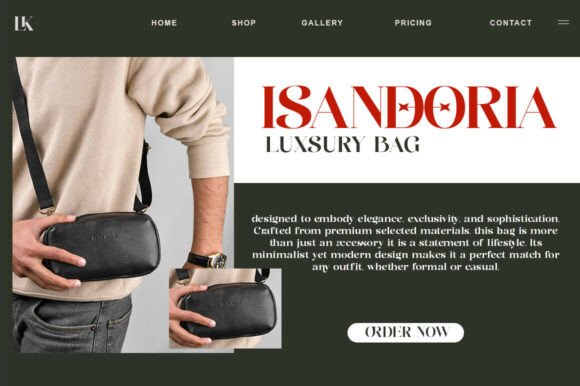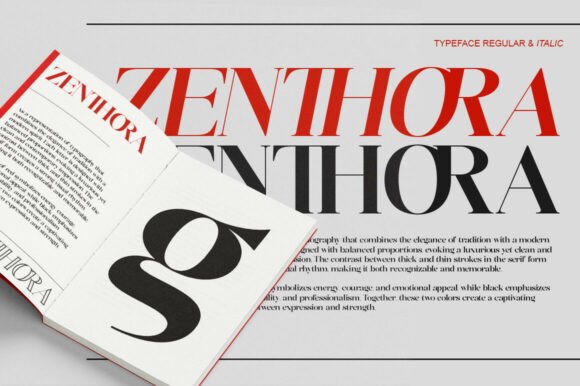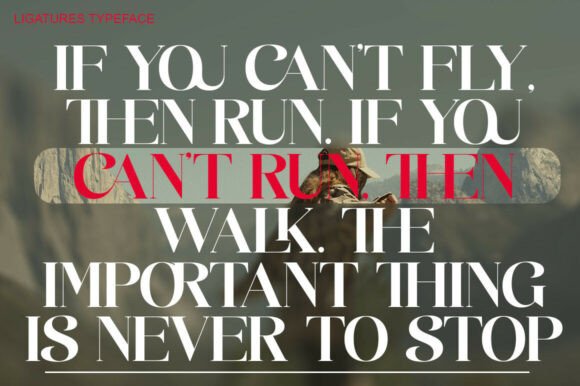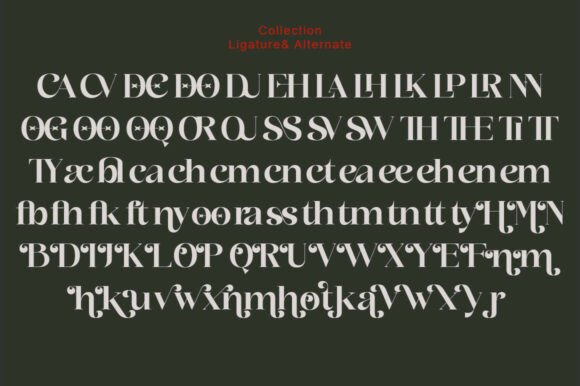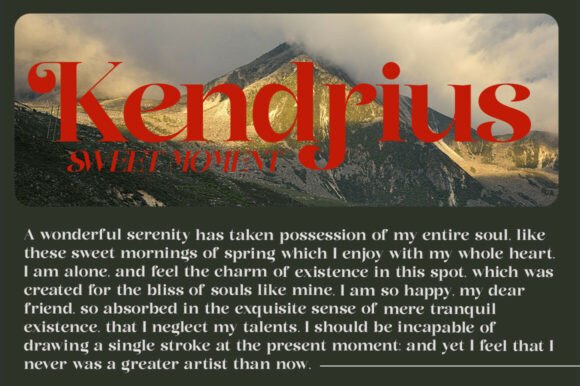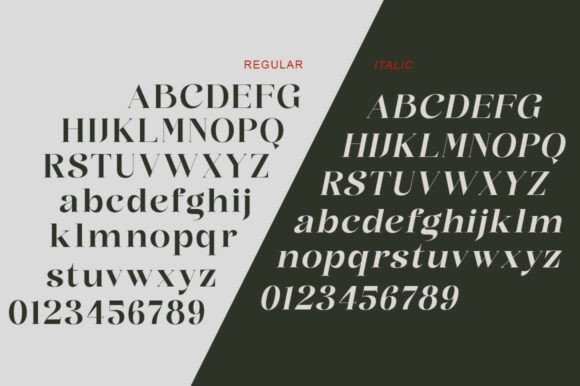
Introducing Feylandor Font: A Luxurious Serif Font for Elegant Designs
In the world of typography, fonts play a crucial role in conveying the tone and personality of a brand, product, or artwork. For designers and crafters seeking a font that embodies both fantasy and elegance, Feylandor Font is an exceptional choice. This serif font masterfully blends the beauty of fantasy with the sophistication of classic typography, making it perfect for a wide range of applications.
The Essence of Feylandor Font
Feylandor Font is characterized by its strong yet graceful serif lines, which exude a luxurious and exclusive feel. Its elegant design makes it an ideal choice for works that desire a refined and sophisticated look. Whether you’re working on premium editorial content, branding, fantasy designs, posters, or book covers, Feylandor Font is designed to elevate your project with its versatile and captivating style.
Key Features of Feylandor Font
- Serif Elegance: Feylandor’s serif lines add a touch of classic sophistication to any design, making it perfect for projects that require an air of elegance.
- Fantasy Twist: The font’s fantasy elements bring a unique and imaginative flair, ideal for designs that venture into the realms of fantasy and fiction.
- Versatility: Feylandor is crafted to be versatile, suitable for a variety of applications ranging from premium editorial and branding to fantasy designs, posters, and book covers.
- Luxurious Feel: The font’s overall design imparts a luxurious and exclusive feel, making it an excellent choice for high-end projects.
Applications of Feylandor Font
Feylandor Font’s versatility makes it suitable for a myriad of design projects. Here are some of the ideal applications:
- Premium Editorial and Branding: Add a touch of elegance and sophistication to magazines, editorials, and brand identities.
- Fantasy Designs: Bring your fantasy worlds to life with a font that captures the essence of magic and wonder.
- Posters: Create eye-catching posters for movies, events, or advertising campaigns that require a unique and captivating typography.
- Book Covers: Give your book covers a professional and enchanting look, perfect for fantasy novels, historical fiction, and classic literature.
Why Choose Feylandor Font?
In a sea of fonts, Feylandor stands out for its unique blend of elegance and fantasy. Here are a few reasons why designers and crafters prefer Feylandor:
- Unique Aesthetic: Feylandor offers a distinct look that combines the best of both worlds – the charm of fantasy and the grace of classic typography.
- High Versatility: The font’s adaptability makes it a valuable asset for designers who work on a wide range of projects.
- Attention to Detail: Crafted with meticulous attention to detail, Feylandor ensures that your designs stand out with clarity and sophistication.
Feylandor Font is a remarkable addition to the world of typography, offering a perfect blend of fantasy and elegance. Its strong yet graceful serif lines, luxurious feel, and versatility make it an excellent choice for designers and crafters aiming to create sophisticated and captivating designs. Whether you’re working on premium editorial content, branding, fantasy designs, or book covers, Feylandor Font is sure to elevate your projects to new heights of elegance and imagination.
Embrace the beauty of Feylandor Font and unlock a world of creative possibilities where fantasy meets elegance.